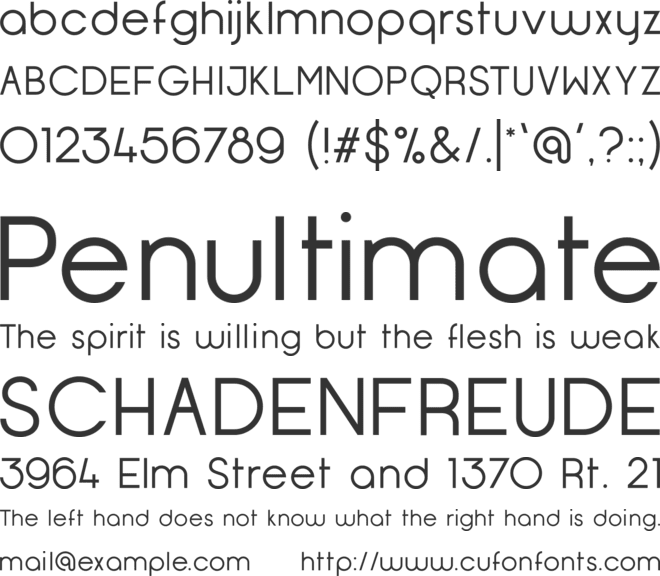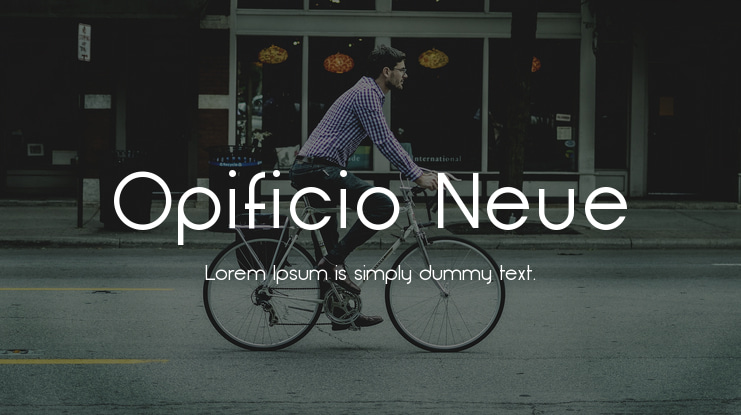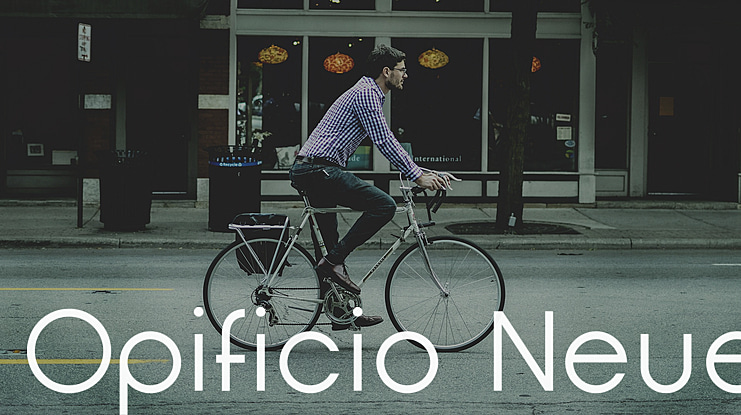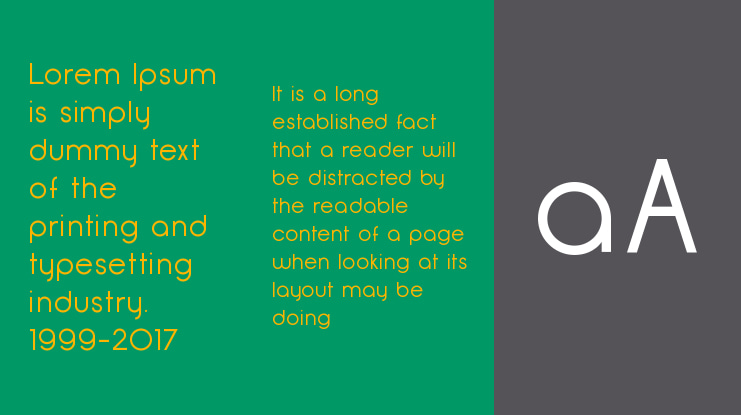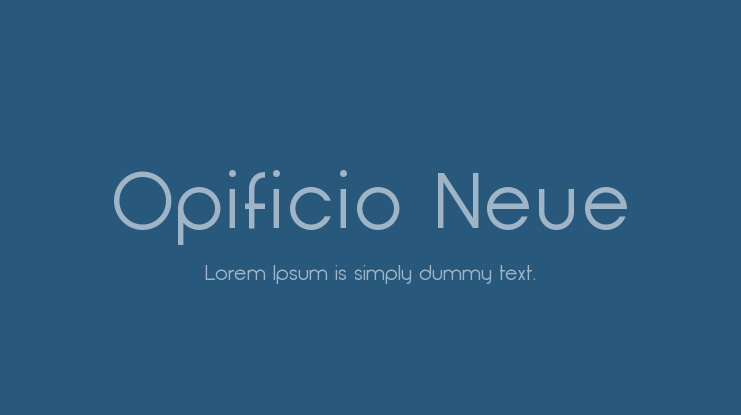
Opificio Neue Font
Andrea Cerboneschi for monocromo
Opificio Neue is a basic sans serif font, ideal for writing even in small sizes. Opificio Neue has all the characters: European, Cyrillic, Greek and Turkish.